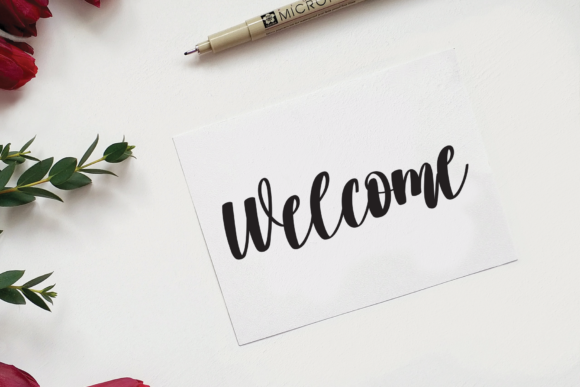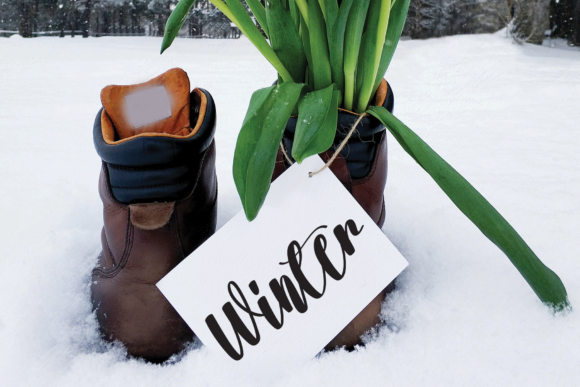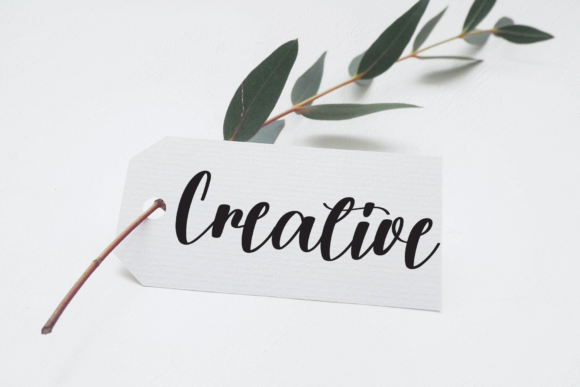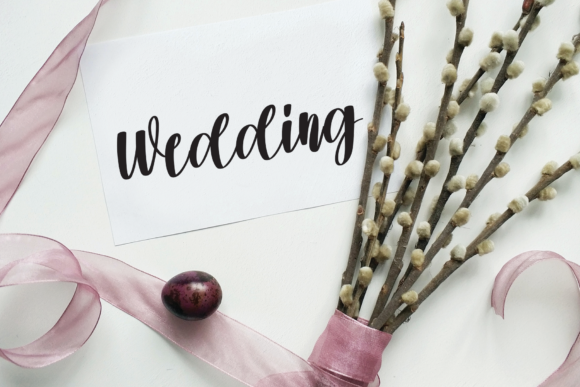
The Perfect Script for Love: Introducing Acapela Font
As a designer, there’s nothing quite like the thrill of discovering a new font that captures the essence of a project. For me, it’s the moment when the perfect combination of style and personality comes together, and I know I’ve found my perfect match. It happened recently when I stumbled upon the Acapela Font – a sweet and delicate handwritten font that screams romance and joy.
Perfect for writing wedding invitations, cards, or any other design that needs a touch of whimsy, the Acapela Font is a must-have for designers looking to add a personal and intimate feel to their work. Its dainty script makes it ideal for special occasions, and its versatility ensures that it will never go out of style. Whether you’re a seasoned pro or a budding designer, the Acapela Font is sure to be a valuable addition to your toolkit.
Acapela Font Key Features
- Unique Characteristics: Acapela Font is a speech-enabled font, which means it can be used to generate audio output of text, making it a valuable tool for accessibility and interactive applications.
- Font Style: Offers a range of styles, including regular, bold, italic, and bold italic, providing flexibility for designers to create visually appealing and engaging content.
Acapela Font Review
Acapela Font is a unique, handwritten font that aims to bring a personal touch to your designs. Here’s my honest take on this font.
- The font’s organic feel is perfect for creating a friendly, approachable atmosphere in your designs.
- Acapela Font is highly customizable, allowing you to tweak its various aspects to fit your design’s needs.
- The font’s bold, expressive strokes make it ideal for titles, headings, and other attention-grabbing elements.
- The font’s inconsistent stroke weight and size can make it challenging to read, especially in body text.
- Acapela Font’s lack of ligatures and advanced typographic features can limit its use in complex, multi-line text.
Overall, Acapela Font is a solid choice for designers looking to add a unique, handwritten touch to their work. While it excels in certain areas, its limitations should be taken into consideration when choosing a font for your project.
Acapela is commonly used for:
1. Headings and titles in designs and presentations.
2. Emphasis and highlighting text in documents and presentations.
3. Creating unique and visually appealing designs for social media, advertising, and marketing materials.